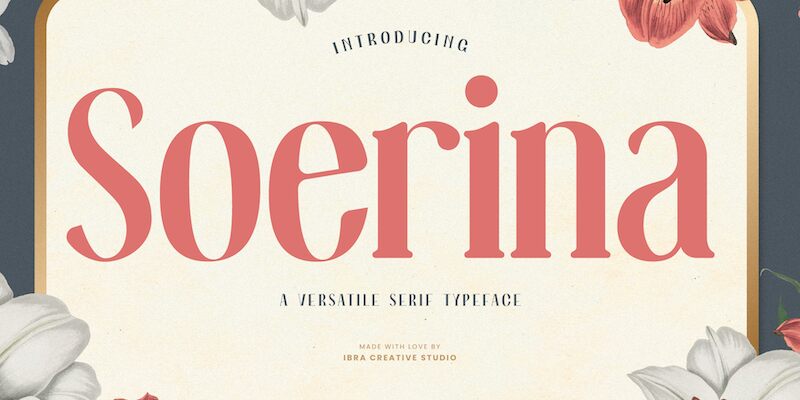
Soerina font by Ibra Creative Studio is a modern elegant serif whose grace lies primarily in its extreme contrast between thick and thin lines. The condensed typeface showcases a sense of sophistication with every letter to make each design created come to life without special efforts.
Transform this free serif font into logo titles, corporate identity stationery projects, magazine article headlines, website and mobile interfaces, book cover titles, social media posts, typographic products’ packaging designs, apparel labeling ideas etc.